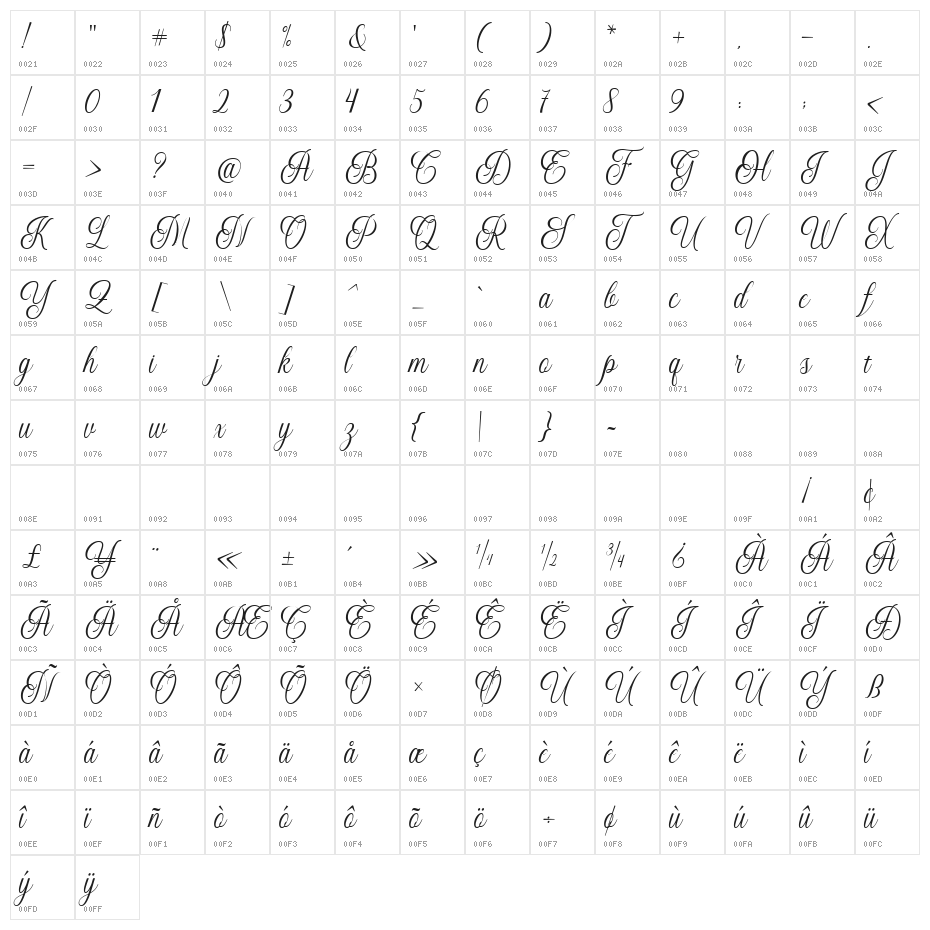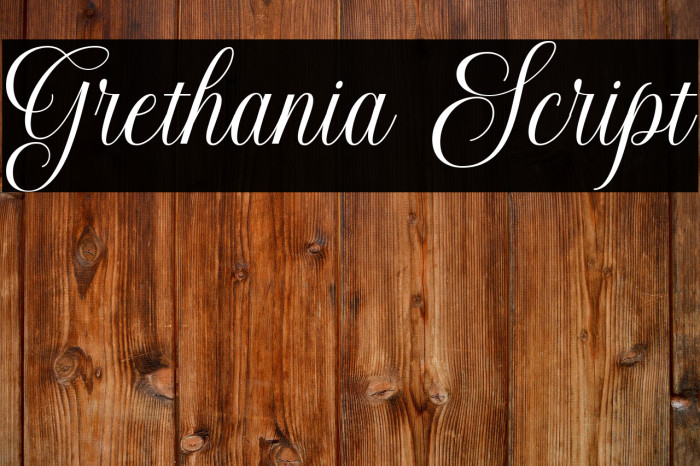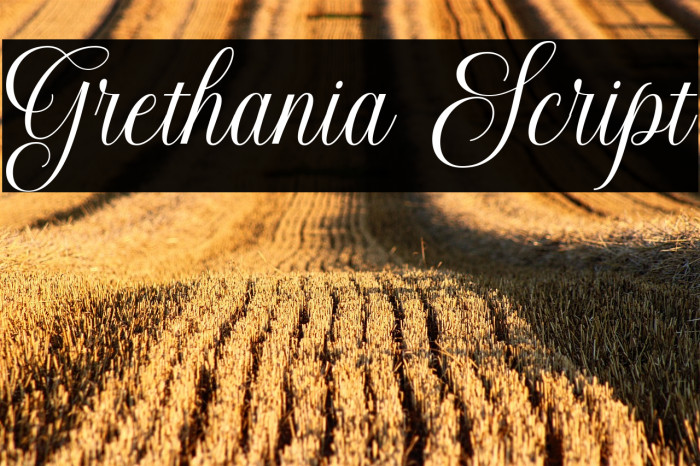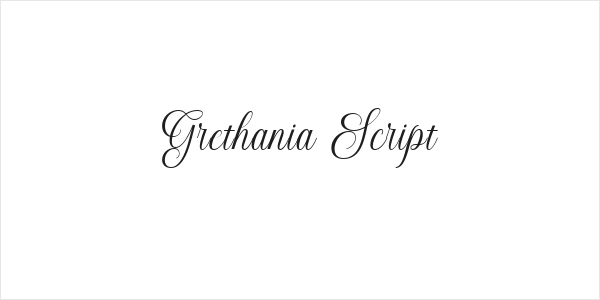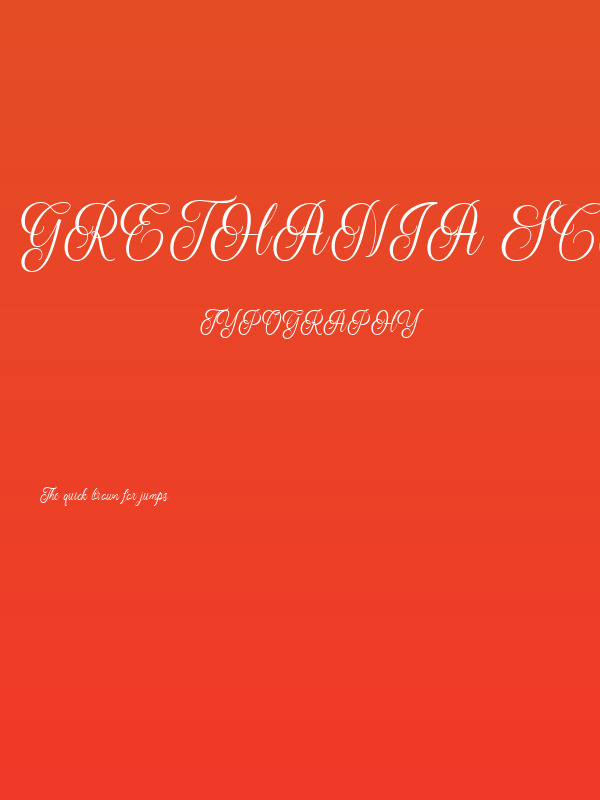
Grethania Script Font
Grethania Script Description
This elegant script font features flowing, interconnected letters that exude a sense of sophistication and grace. The uppercase letters are ornate, with intricate loops and flourishes, while the lowercase letters maintain a smooth, cursive style that is both readable and stylish. The numerals are consistent with the script style, offering a cohesive look across all characters. Special characters are thoughtfully designed to complement the overall aesthetic, making this font suitable for a variety of decorative purposes. The font's high contrast in stroke thickness adds to its dramatic and eye-catching appearance, making it ideal for formal invitations, branding, and other projects that require a touch of elegance.
| Overall Style | Elegant, Decorative |
| Use Case | Headlines, Invitations, Branding |
| Proposed Projects | Ideal for wedding invitations, elegant branding, greeting cards, and decorative signage. |